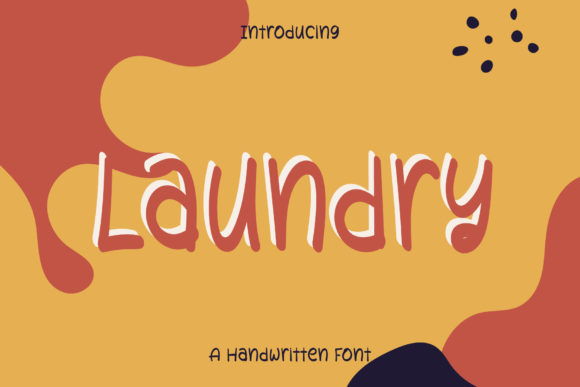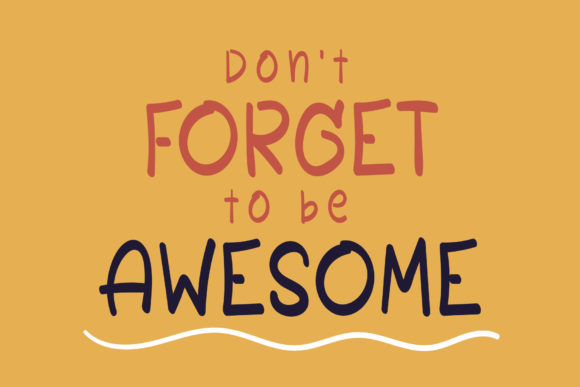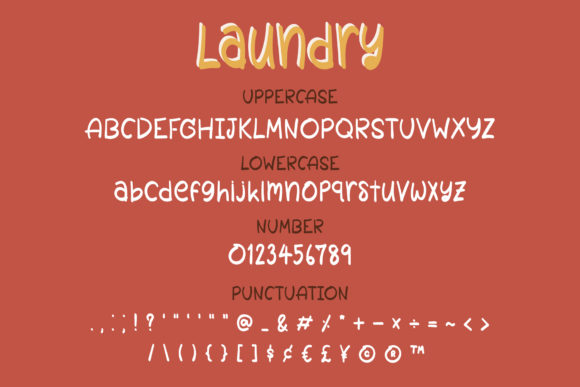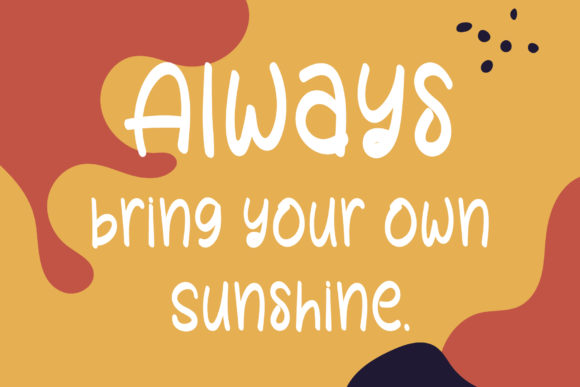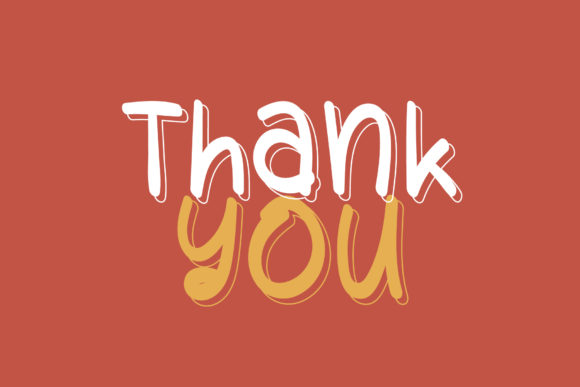
Laundry Font
About Laundry Font
Laundry is a simple and neat handwritten font. It can easily be matched to an incredibly large set of projects, so add it to your creative ideas and notice how it makes them stand out!